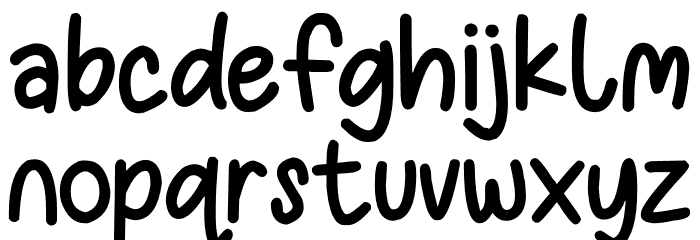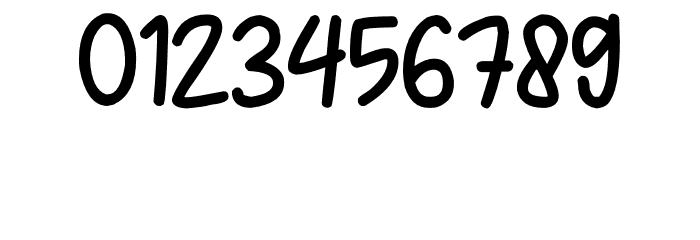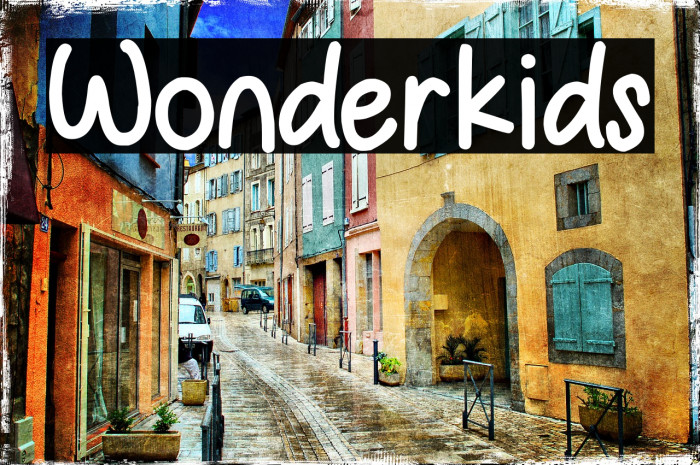
Wonderkids Font
This playful and whimsical font features rounded, hand-drawn characters that convey a sense of fun and creativity. The letters are bold and slightly irregular, giving them a casual and approachable feel. The strokes are consistent in thickness, providing a uniform appearance across all characters. This font is particularly suitable for projects that aim to capture a youthful or informal tone. The numbers and special characters maintain the same playful style, ensuring a cohesive look across different types of content.
A playful, hand-drawn font with rounded, bold characters.
- Proposed Projects: Ideal for children's books, educational materials, playful branding, and casual invitations.
- Overall Style: Playful
- Use Case: Headlines, Logos, Informal Text